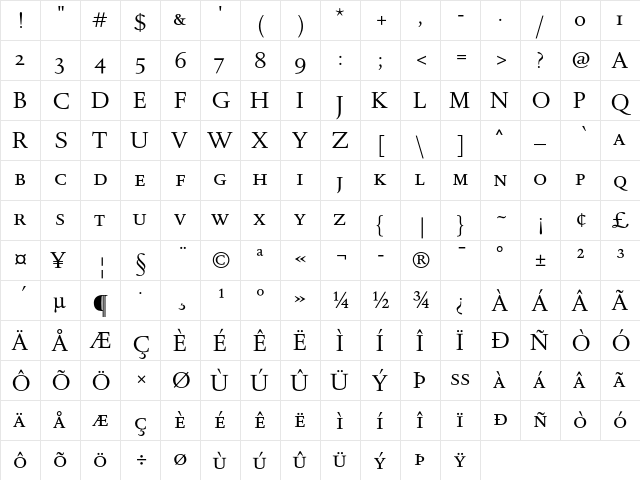
DTL Romulus T Caps Regular
| Style | T Caps Regular |
Design Context for DTL Romulus Typeface
DTL Romulus is a composed and adaptable typeface that performs quietly and consistently across a wide range of design contexts.